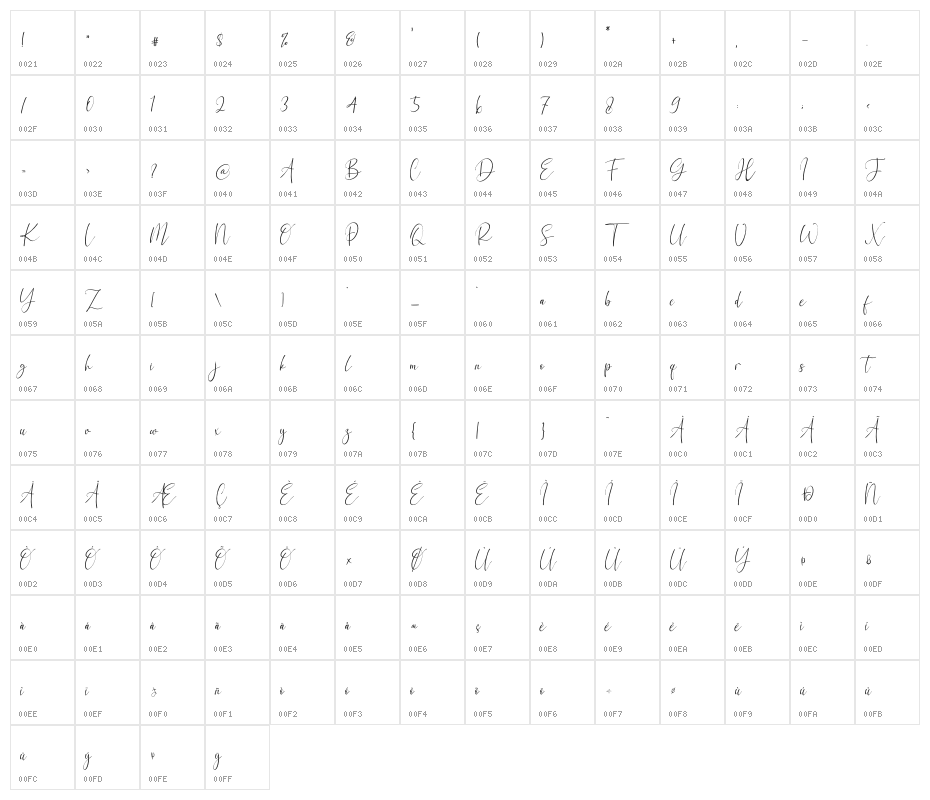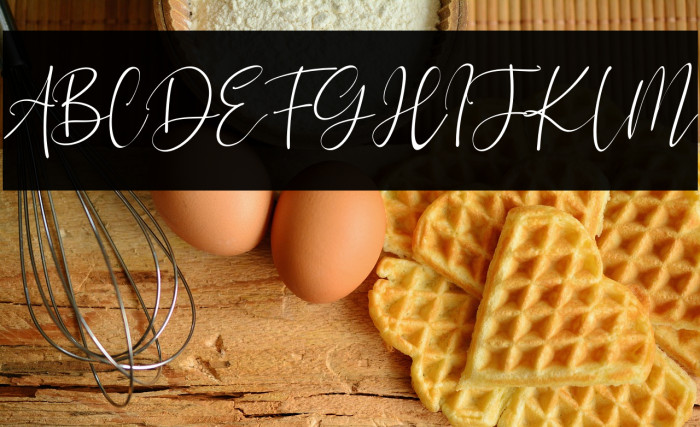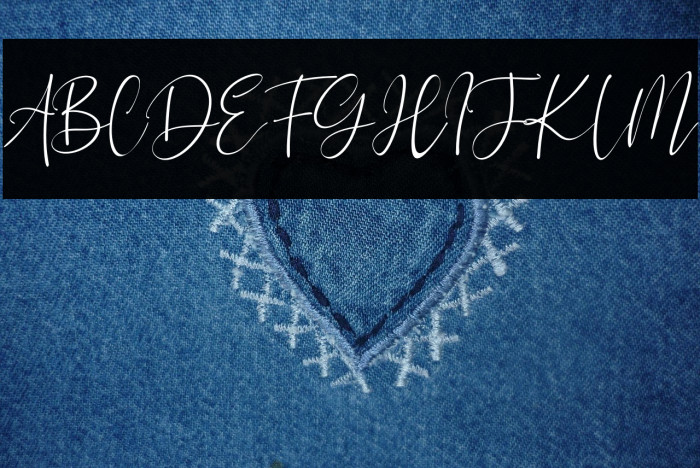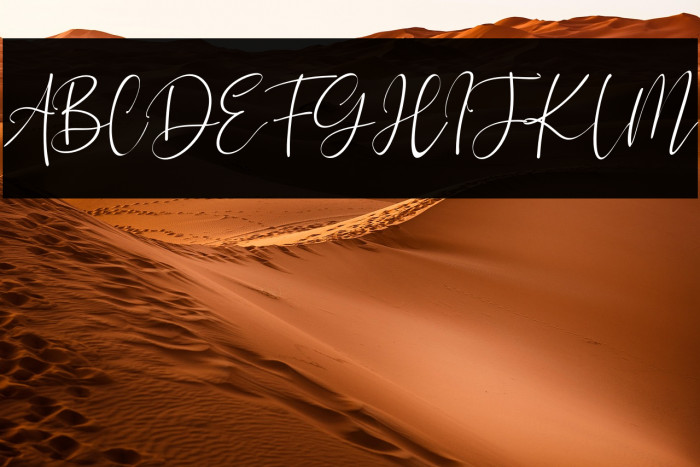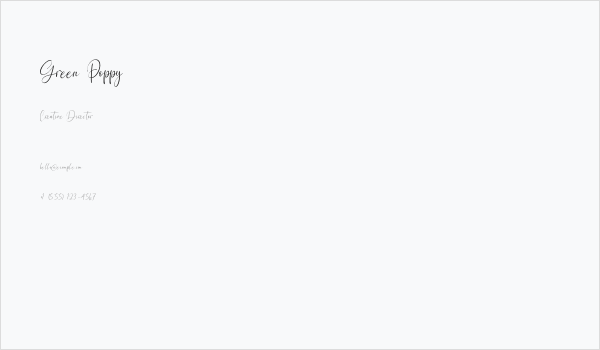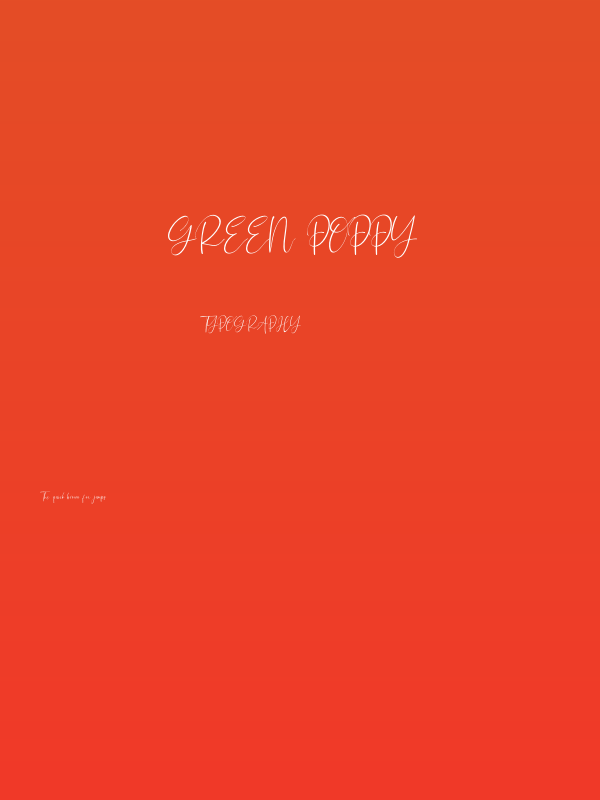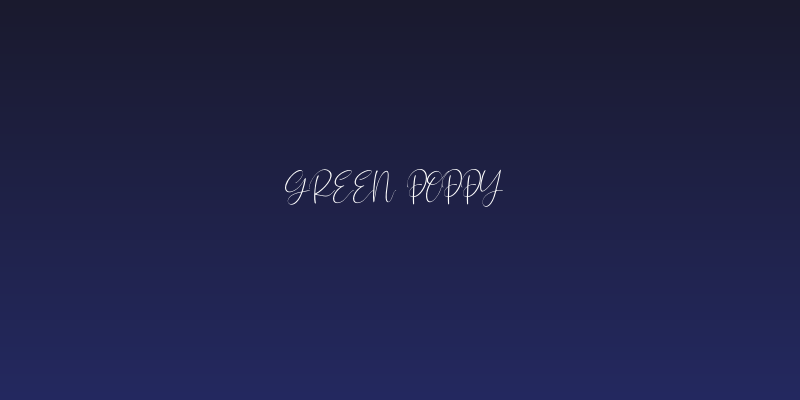
Green Poppy Font
Green Poppy Description
This font features an elegant and flowing script style, characterized by its smooth, cursive strokes and graceful loops. The uppercase letters exhibit a sophisticated flair with extended ascenders and descenders, giving a sense of movement and fluidity. The lowercase letters maintain a consistent style, complementing the uppercase with their own delicate curves. The numerals are designed to match the overall aesthetic, with a slight slant and a touch of whimsy. Special characters are seamlessly integrated, maintaining the font's cohesive look. This font is perfect for projects that require a touch of elegance and sophistication.
| Proposed Projects | Ideal for wedding invitations, elegant branding, personal stationery, and decorative quotes. |